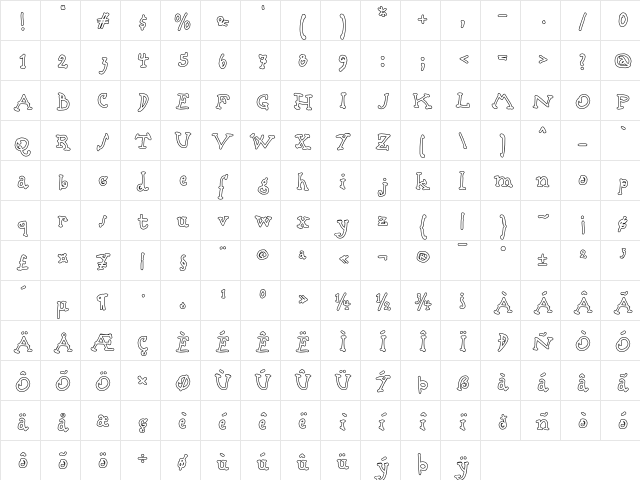
Babine Outline
| Foundry | preussTYPE | ingo preusss |
| Designer | ingo preusss |
Design Context for Babine Typeface
Babine is built around its visual character rather than neutral utility — its distinctive forms are designed to make an impression at display sizes.
Font Pairing: Pair with a clean neutral sans-serif for body copy to let Babine's character lead without overwhelming the composition.
Pro Tip: Use Babine exclusively at display sizes — it was designed to be seen, not read at length. Let a neutral companion handle body copy.